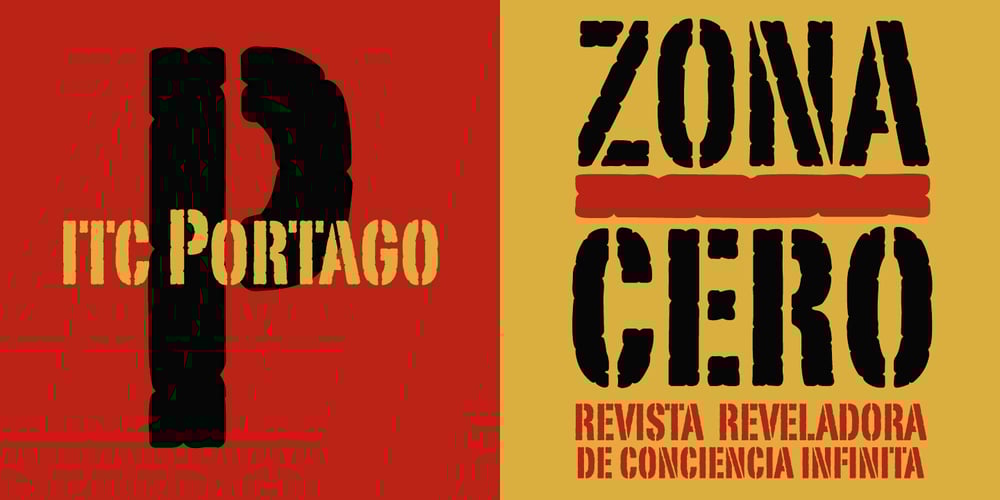
ITC Portago Font Family was designed by Luis Siquot and published by ITC. ITC Portago contains 1 styles and family package options. ITC Portago was designed by Luis Siquot, who admits to a tendency toward unusual typefaces that can be read in text yet also work well in display settings. ITC Portago is a robust alphabet of caps and slightly smaller caps. It is a stencil face, based on the lettering on crates and luggage. Siquot says that his intention drawing Portago was to obtain a neutral, classical, very condensed grotesque stencil shape that is readable in text sizes, showing at the same time the ‘movement’ produced by the nicked edges. And of course the more obvious rough effect in headline sizes.” At small sizes, Portago is best set with slightly looser letterspacing, as capital combinations usually do. Portago includes numerals in both full and small caps proportions.